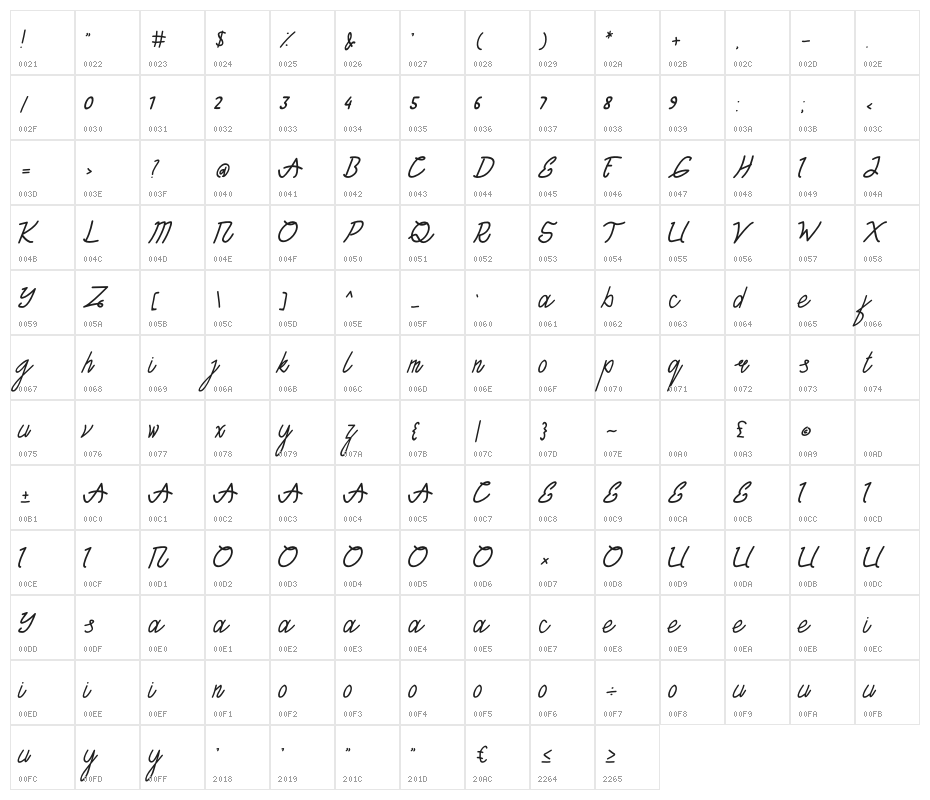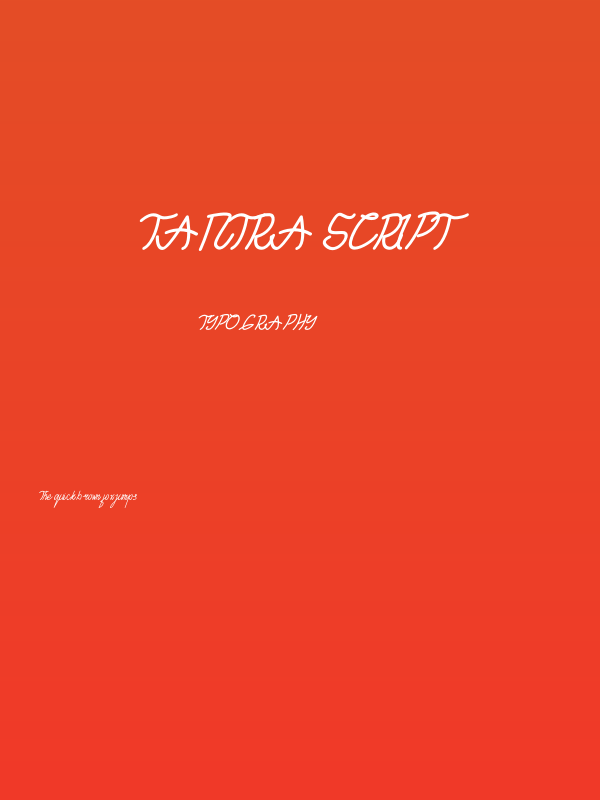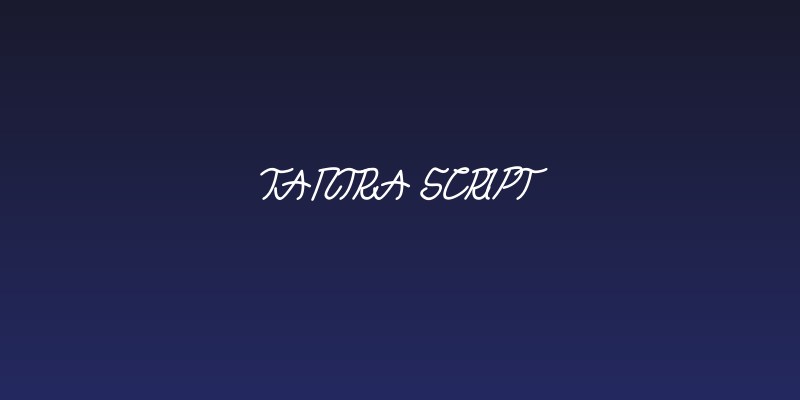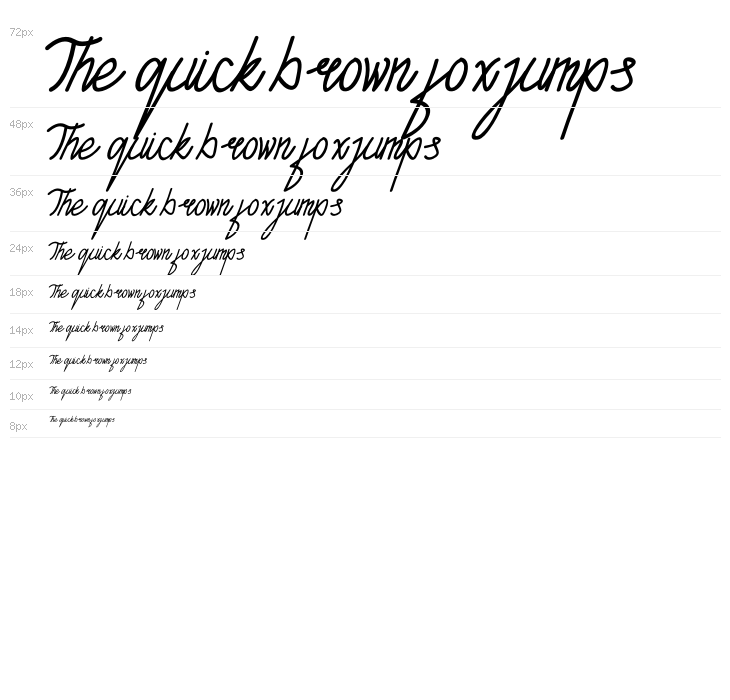
TANTRA Script Font
TANTRA Script Description
This font exudes a dynamic and fluid style, characterized by its script-like appearance. The letters are interconnected, mimicking the flow of cursive handwriting. The uppercase letters are bold and slightly slanted, giving a sense of movement and elegance. The lowercase letters maintain a consistent rhythm, with smooth curves and loops that enhance readability. The numerals are distinct yet harmonize well with the overall script style. Special characters are crafted with the same attention to detail, ensuring they blend seamlessly with the alphabet. This font is ideal for projects that require a personal touch, such as invitations, greeting cards, or branding materials.
| Overall Style | Elegant, Personal |
| Use Case | Headlines, Logos, Invitations |
| Proposed Projects | Ideal for invitations, greeting cards, branding materials, and any project requiring a personal, elegant touch. |